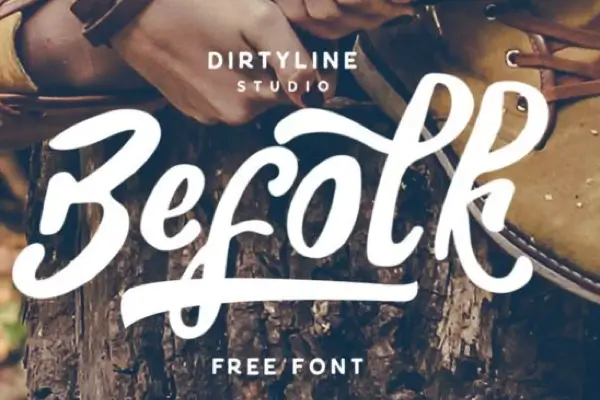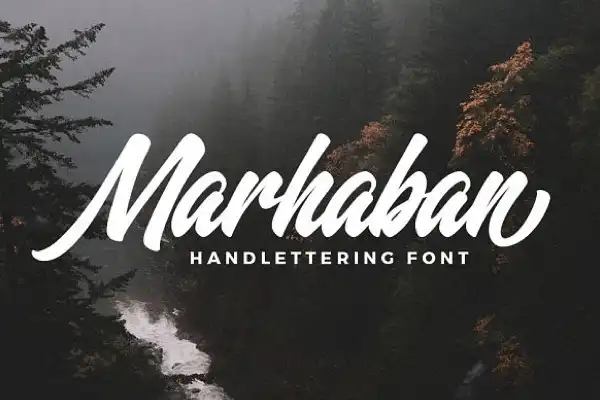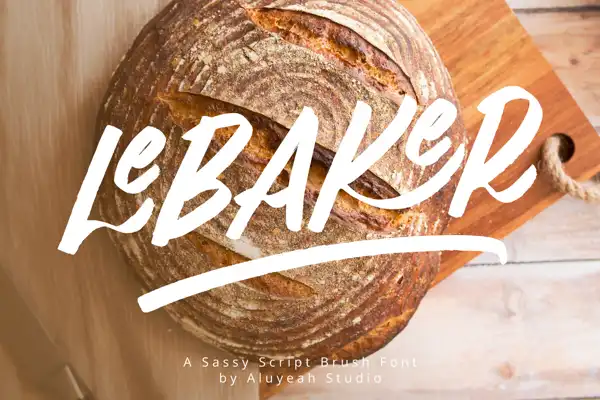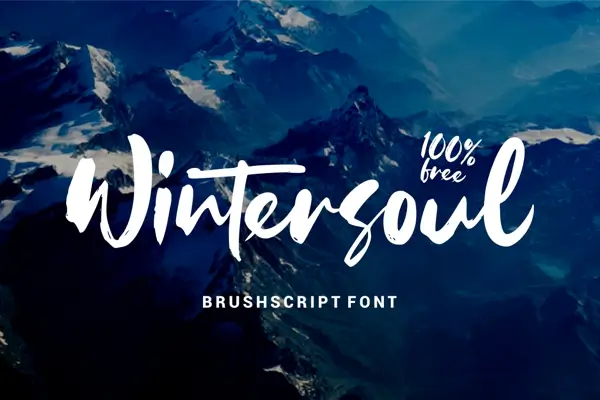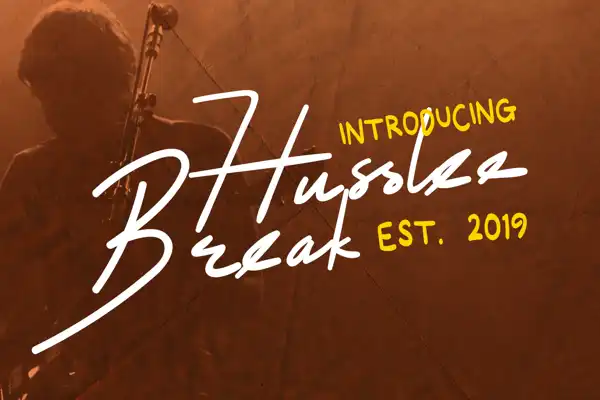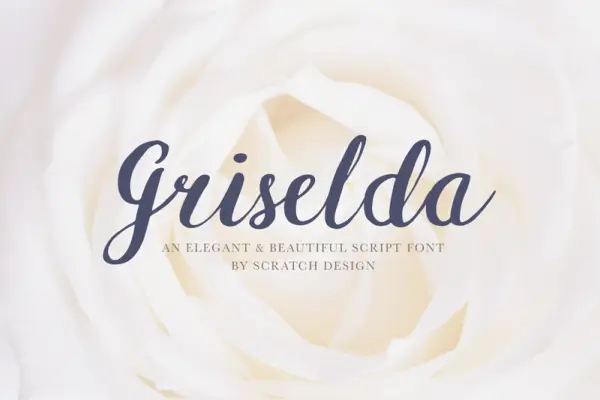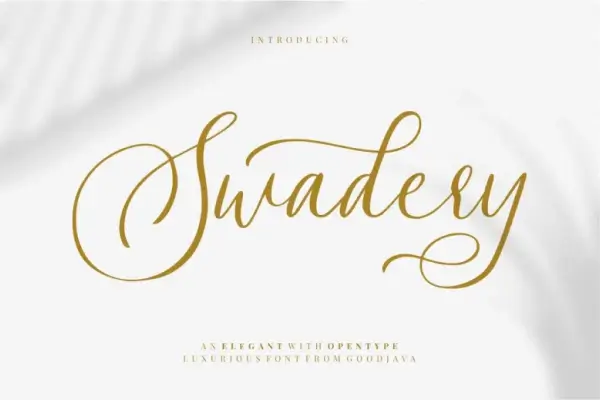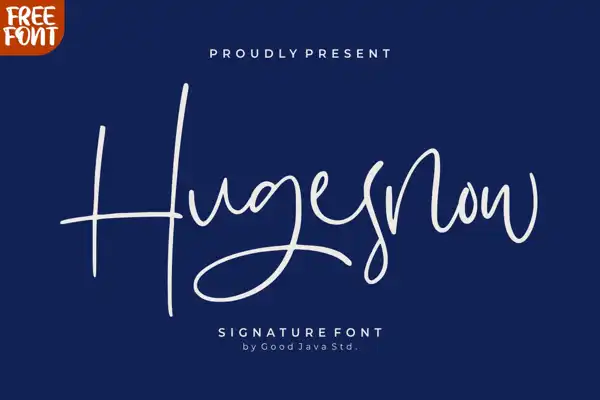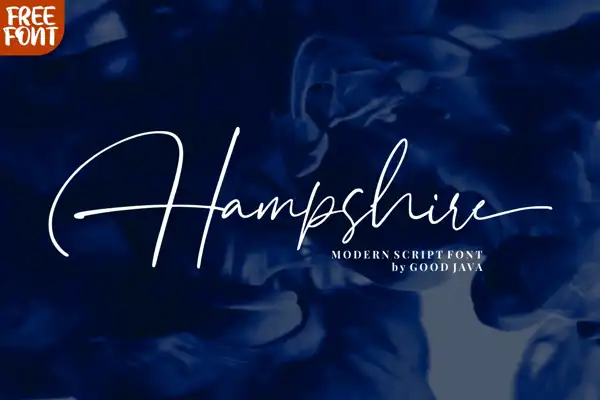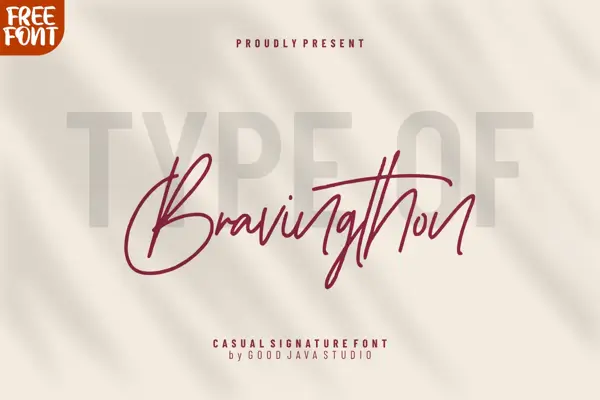
50 Free Handwriting Fonts Worth Using in 2026
Discover 50+ free handwriting fonts you can download and use today. Perfect for branding, websites, social media, and creative projects.
Free handwriting fonts can instantly make a design feel more personal, expressive, and human. Whether you’re designing a website, wedding invitation, social media graphic, logo, or product packaging, the right handwritten font can completely change the tone of a project.
Figuring out which one actually works for what you are doing usually takes time. Some look elegant, some look messy, some feel more like a signature. When you browse a big list, they can start blending together after a while.
So instead of a long list of 50 fonts, I organized them in a way that actually helps you find the right font for your design.
In most cases, handwriting fonts work better as a highlight rather than the main type. They are great for headlines, posters, packaging, or anything that needs a more personal touch. But for longer text or interfaces, they tend to get in the way more than they help.
How to Choose Handwriting Fonts
Before choosing a font, it helps to think about the context. A font that looks perfect on a wedding invitation might not work at all on a website, especially when accessibility comes into play.
Another thing to keep in mind is that in most cases, cursive handwritten fonts work better as accents or highlights rather than as the main text.
A few simple rules help narrow the options:
• Use handwriting fonts for short text
• Pair them with clean supporting fonts
• Check readability on mobile
• Test contrast before publishing
• Avoid using multiple cursive script fonts together
You should also think about implementation. On a website, decorative typography can affect loading speed and user experience for example. If a font is being used online, review readability and rendering as carefully as style.
In most interface projects, handwriting fonts are rarely used in menus, forms, long paragraphs, or other high-readability areas.
When I'm evaluating a handwriting font, I ask myself four questions:
• Readability: Can someone understand it instantly?
• Context: Does it fit the tone of the project?
• Versatility: Will it still work across web, mobile, print, or in motion?
• Restraint: Can it be used sparingly and do one job well?
If the font is going on a live site, there is also another layer to consider. Typography should support the experience, not complicate it.
A Quick Way to Narrow Down the Right Handwriting Font
To make this easier, I’ve grouped these free handwriting fonts by the kinds of projects I’d actually use them for.
That matters because not all handwriting fonts do the same job. Some work better for wedding invitations and editorial-style print pieces, while others make more sense for social media graphics where you need quick visual impact.
So instead of scrolling through one big list of 50 fonts, here’s how I’d break them down by use case.
Free Handwriting Fonts for Websites
Web typography is less forgiving. Even a beautiful handwriting font can become a usability problem if you put it in the wrong spot.
I would only use script fonts on websites for hero sections, pull quotes, section intros, or occasional campaign moments. That's it. Here are the ones worth using on the web:
1. Sweetie Bunny
Sweetie Bunny rounded cursive font with balanced soft curves
This font feels familiar to cursive fonts that feel very well spaced out and carefully structured. All the curves here are designed to make the words seem balanced, which makes it a perfect font for achieving visual symmetry.
2. Stay Classy Font Free
Stay Classy timeless handwritten font with clean elegant style
This gorgeous and simple handwritten script font feels fashionable and timeless. It works especially well for hero headlines, section intros, and elegant website accents.
‍3. Miller Salt Font
Miller Salt minimal script font with clean modern style
This font duo is simple and clean. The texture within each letter looks vibrant and tender. It has been crafted for making any branding or decor project feel unique.
4. Classical Monoline Script Font
Classical Monoline Script clean calligraphy font with smooth lines